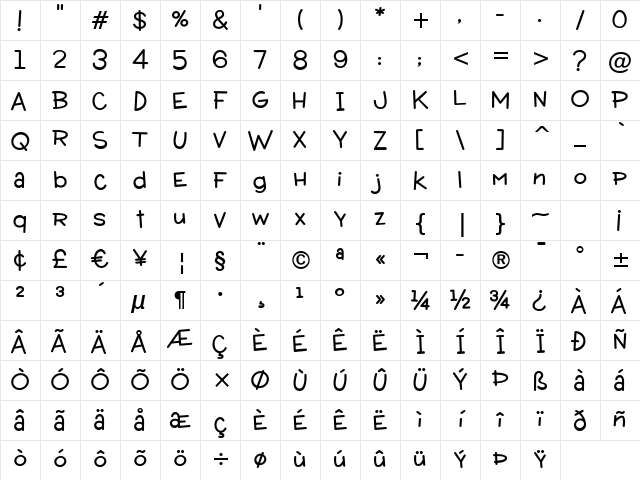
Wacky Action BTN Bold
Wacky Action BTN Family
Wacky Action BTN Bold
Design Context for Wacky Action BTN
Wacky Action BTN is a composed and adaptable typeface that performs quietly and consistently across a wide range of design contexts. Its bold stroke weight gives it real presence on the page.